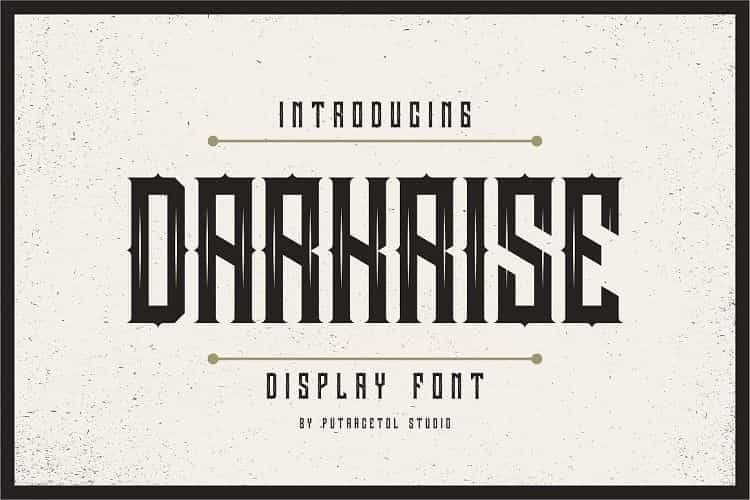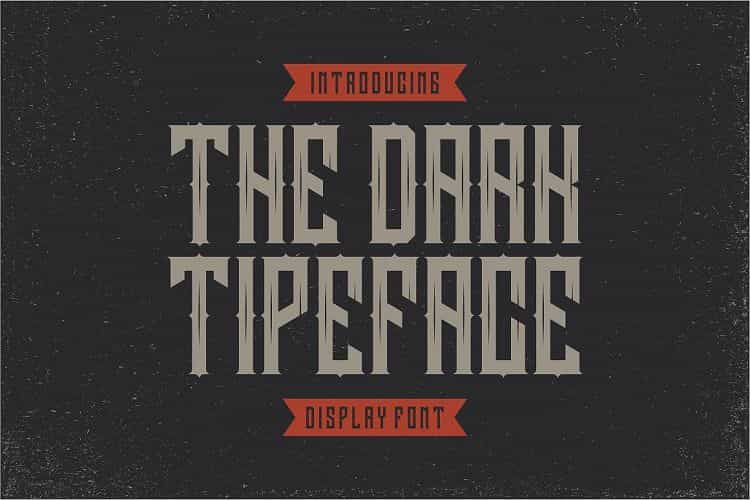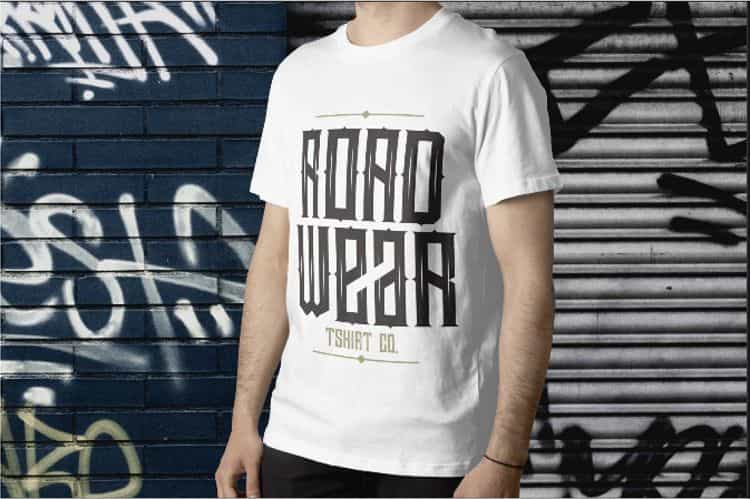
This is a headline font. Introducing Darkrise Font. DARKRISE is a font which was designed after some classic typefaces and the biker style with sharp edges. This font is dynamic, metal and bold; it can be used for logos, tittle, headline, label. T-shirt poster etc.